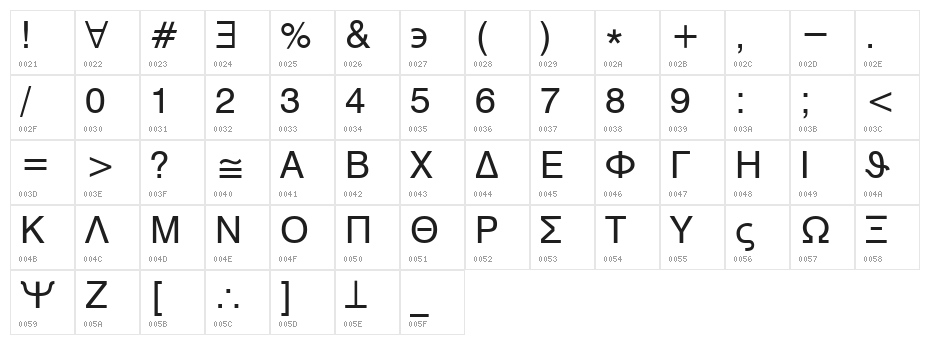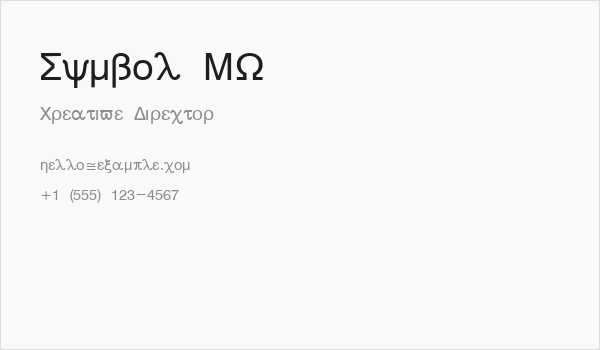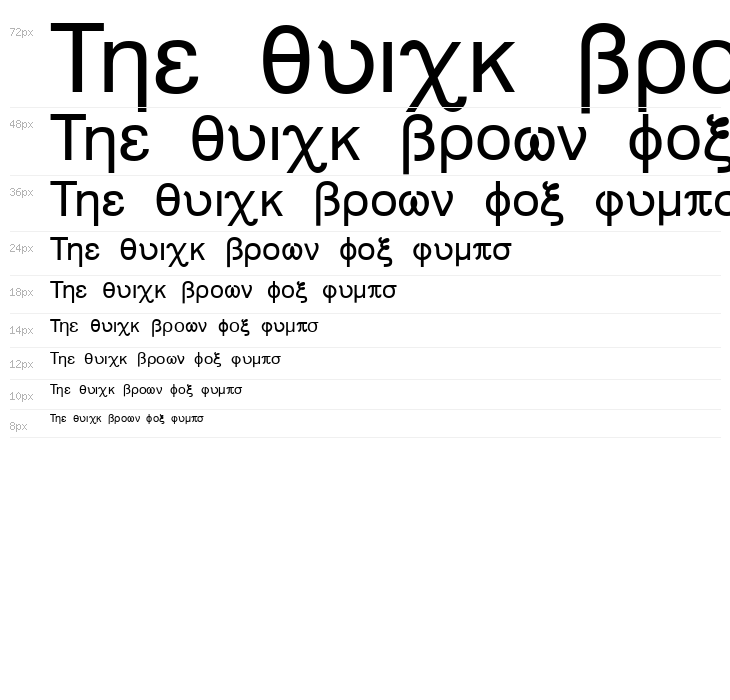
Symbol MW Font
Symbol MW Description
This font is a symbolic representation rather than a traditional alphabetic or numeric font. Each character is depicted as a unique symbol, offering a distinct visual style that is not intended for standard text representation. The symbols are evenly spaced within their respective boxes, suggesting a monospaced layout. The design is clean and geometric, with each symbol occupying a uniform space, making it suitable for specialized applications where symbolic representation is required. The overall appearance is modern and minimalistic, with a focus on clarity and uniformity across all symbols.
| Use Case | Logos, Technical documents, Educational materials |
| Proposed Projects | Ideal for creating symbolic representations in technical documents, educational materials, or graphic design projects requiring unique symbols. |